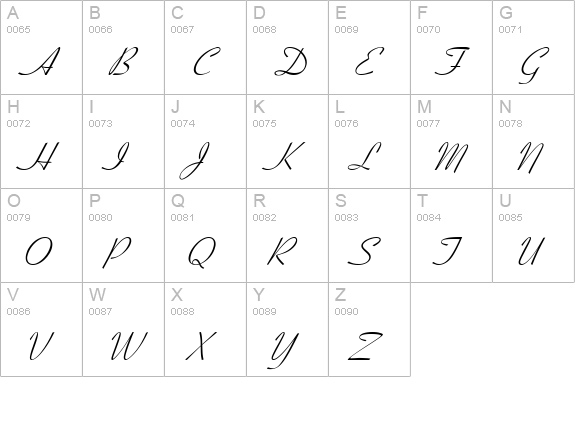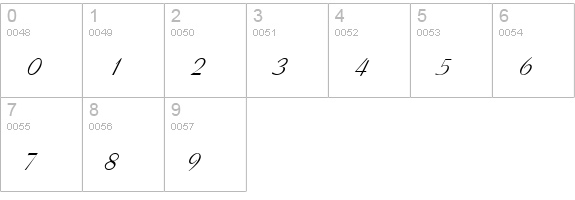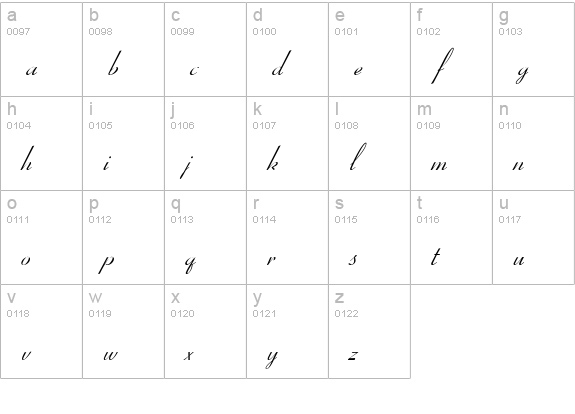
Bow Italic is a distinctive, italic variant in the Bow typeface family \xE2\x80\x94 well suited to design and typography projects.
Bow Italic font is a refined and elegant typeface that exudes sophistication and grace. Its delicate curves and stylish design make it ideal for adding a touch of elegance to any project. The italicized style of Bow font adds a sense of movement and fluidity, creating a dynamic and eye-catching appeal. What makes Bow Italic font even more appealing is that it is freely available to download at FontsMarket.com. This means that you can easily access this stunning font for your design projects without any cost. Whether you are working on invitations, branding materials, or any other creative endeavor, Bow Italic font is sure to elevate your work to the next level. Download it today and bring a touch of sophistication to your designs.